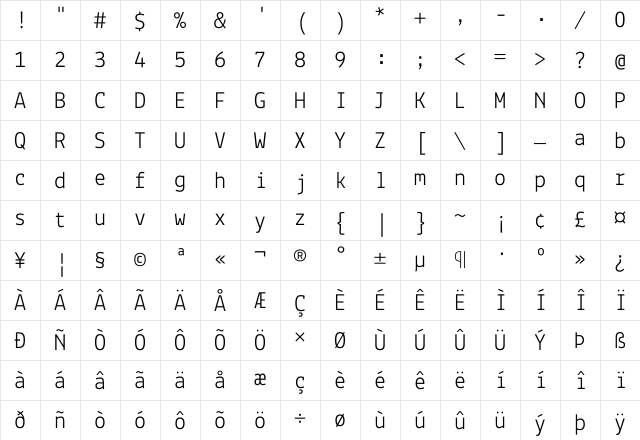
Lekton NF Regular
Designer: Paolo Mazzetti, Luciano Perondi, Raffaele Flato, Elena Papassissa, Emilio Macchia, Michela Povoleri, Tobias Seemiller, Riccardo Lorusso, Sabrina Campagna, Elisa Ansuini, Mariangela Di Pinto, Antonio Cavedoni, Marco Comastri, Luna Castroni, Stefano Faoro,
Design Context for Lekton NF
Lekton NF is a composed and adaptable typeface that performs quietly and consistently across a wide range of design contexts.